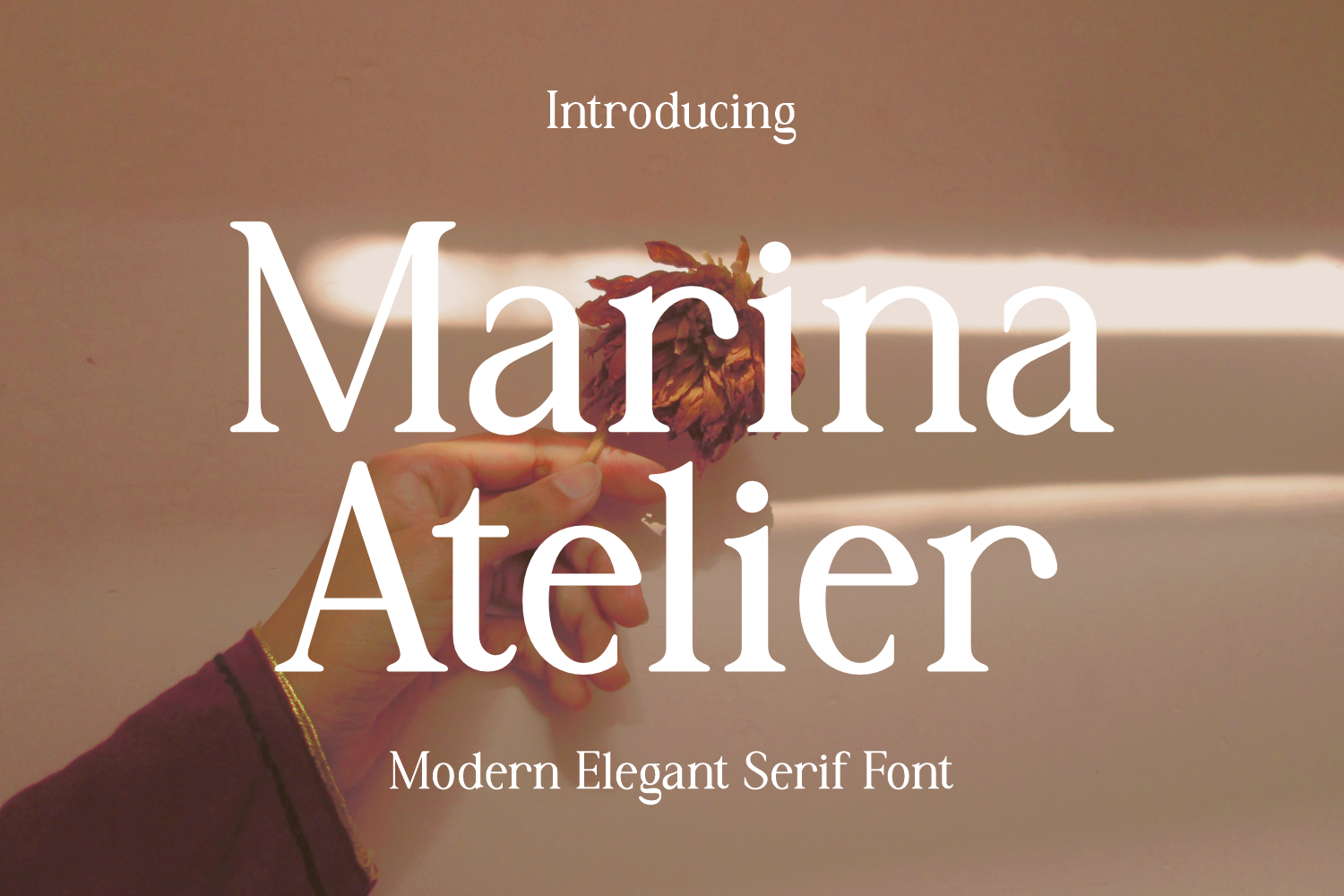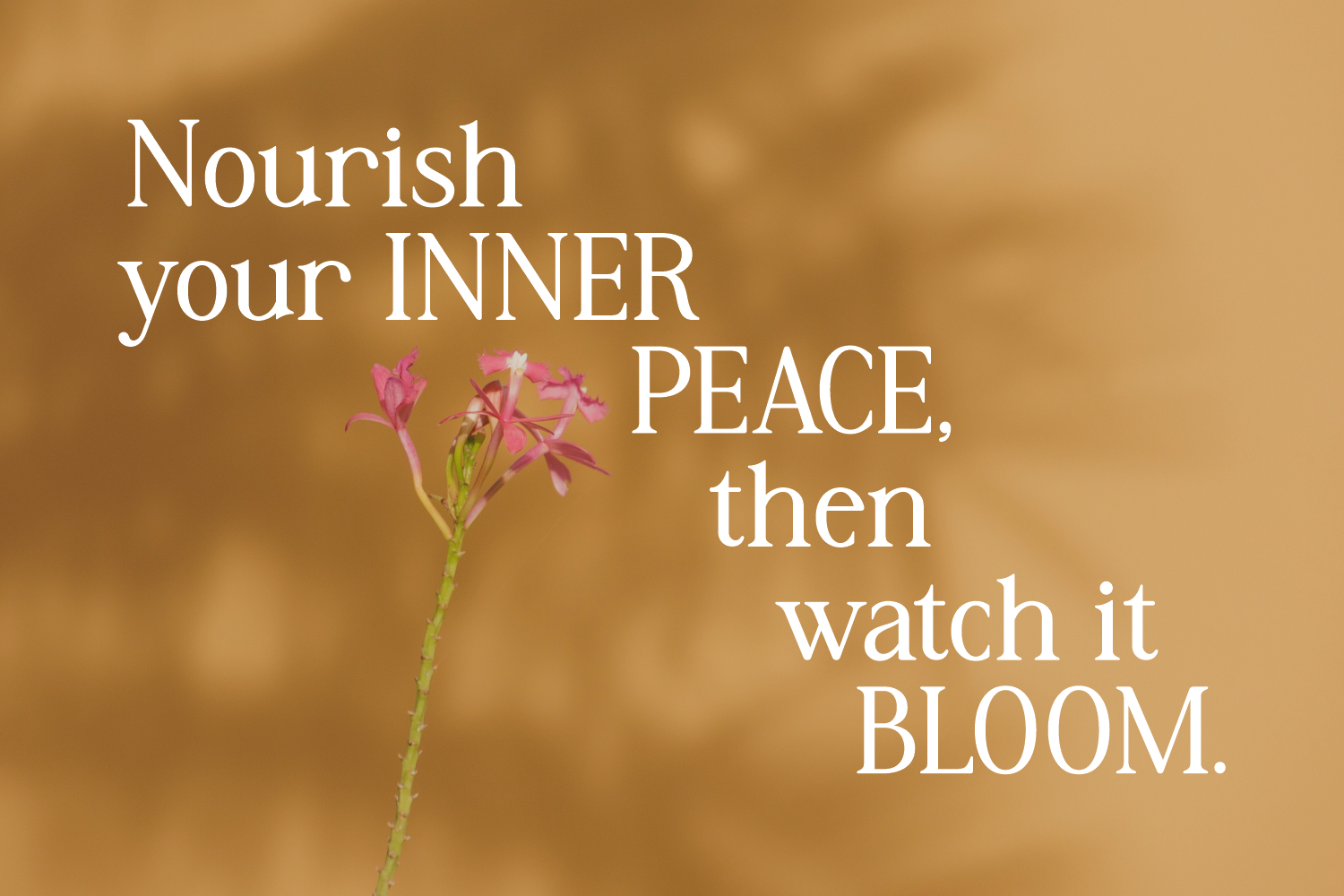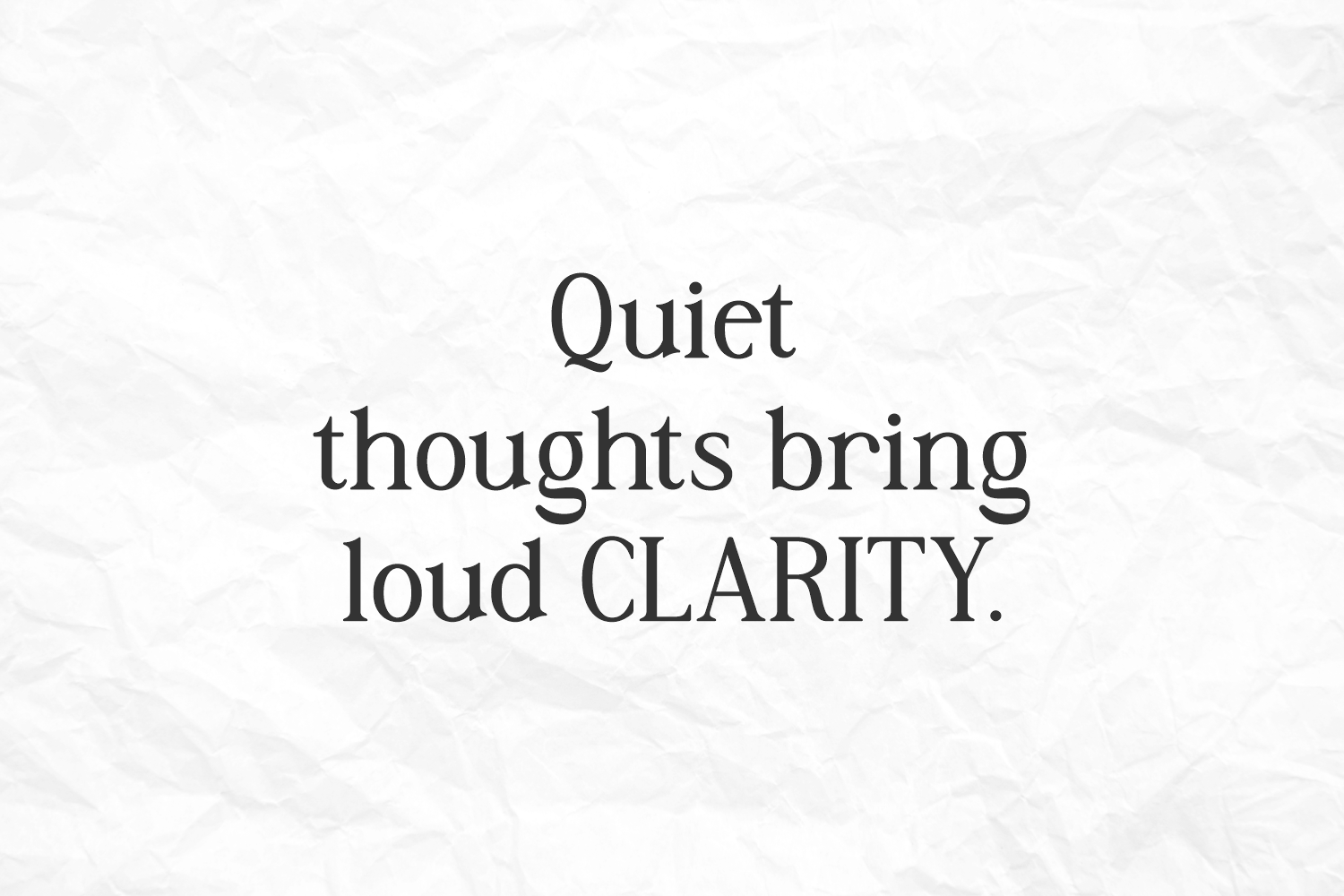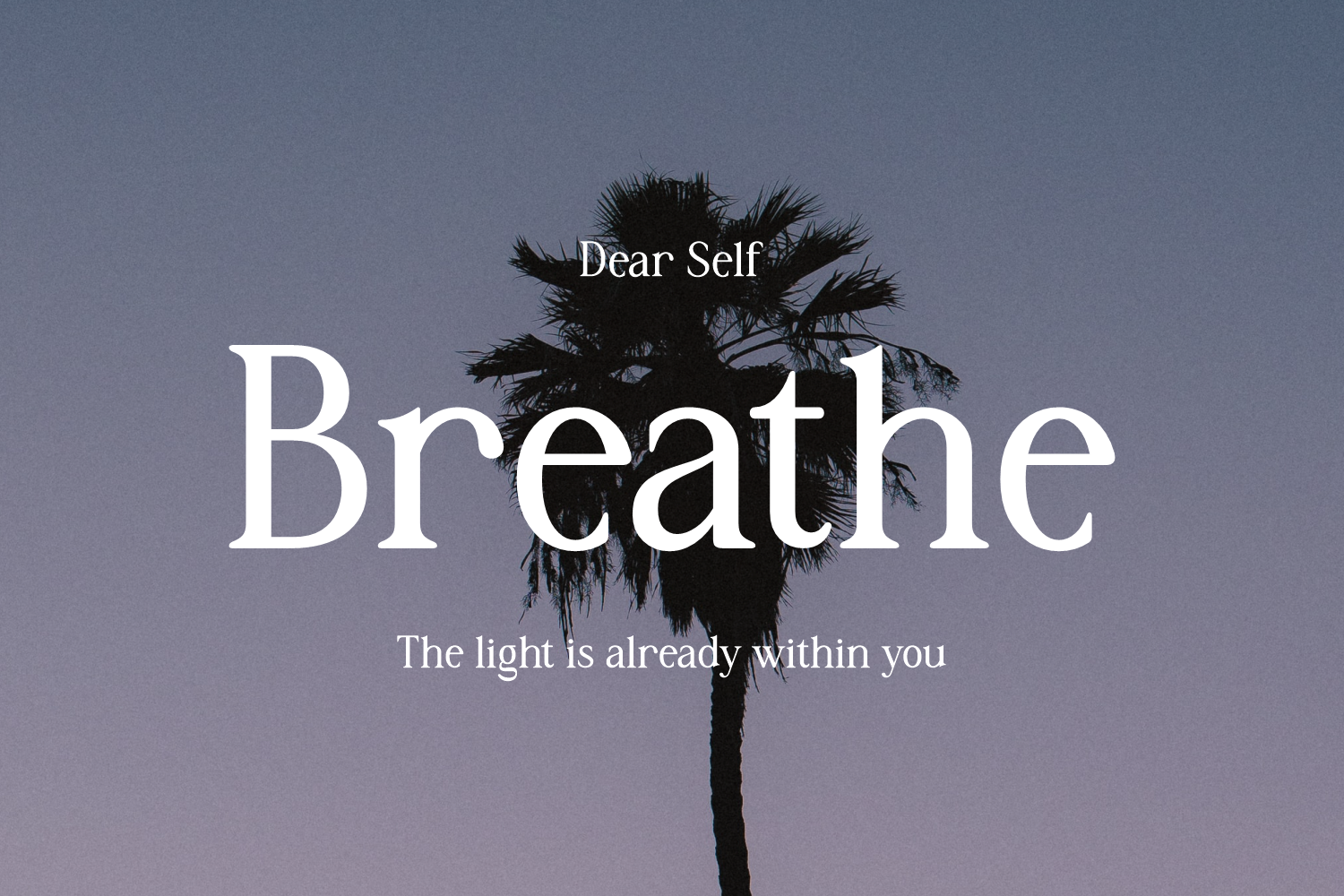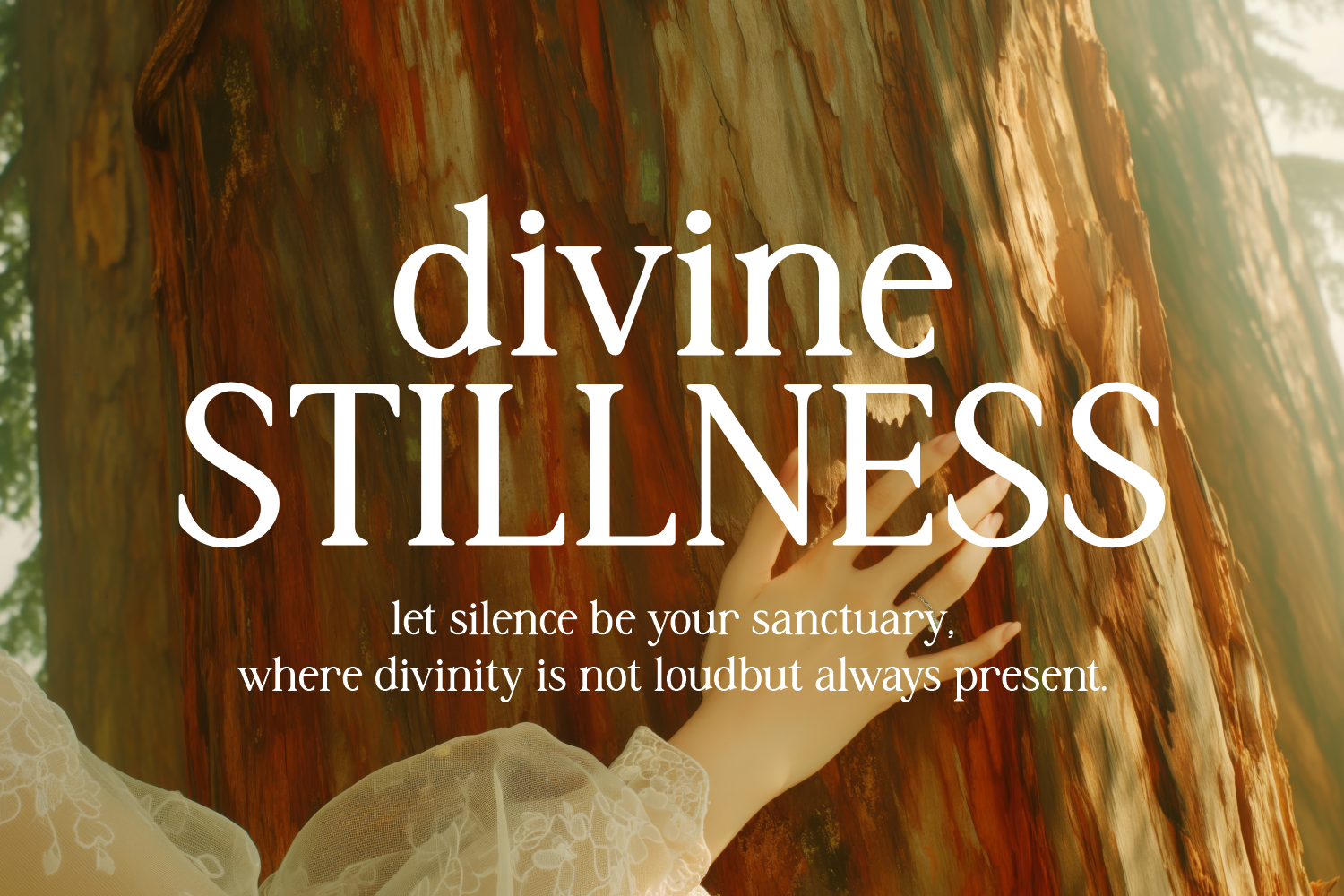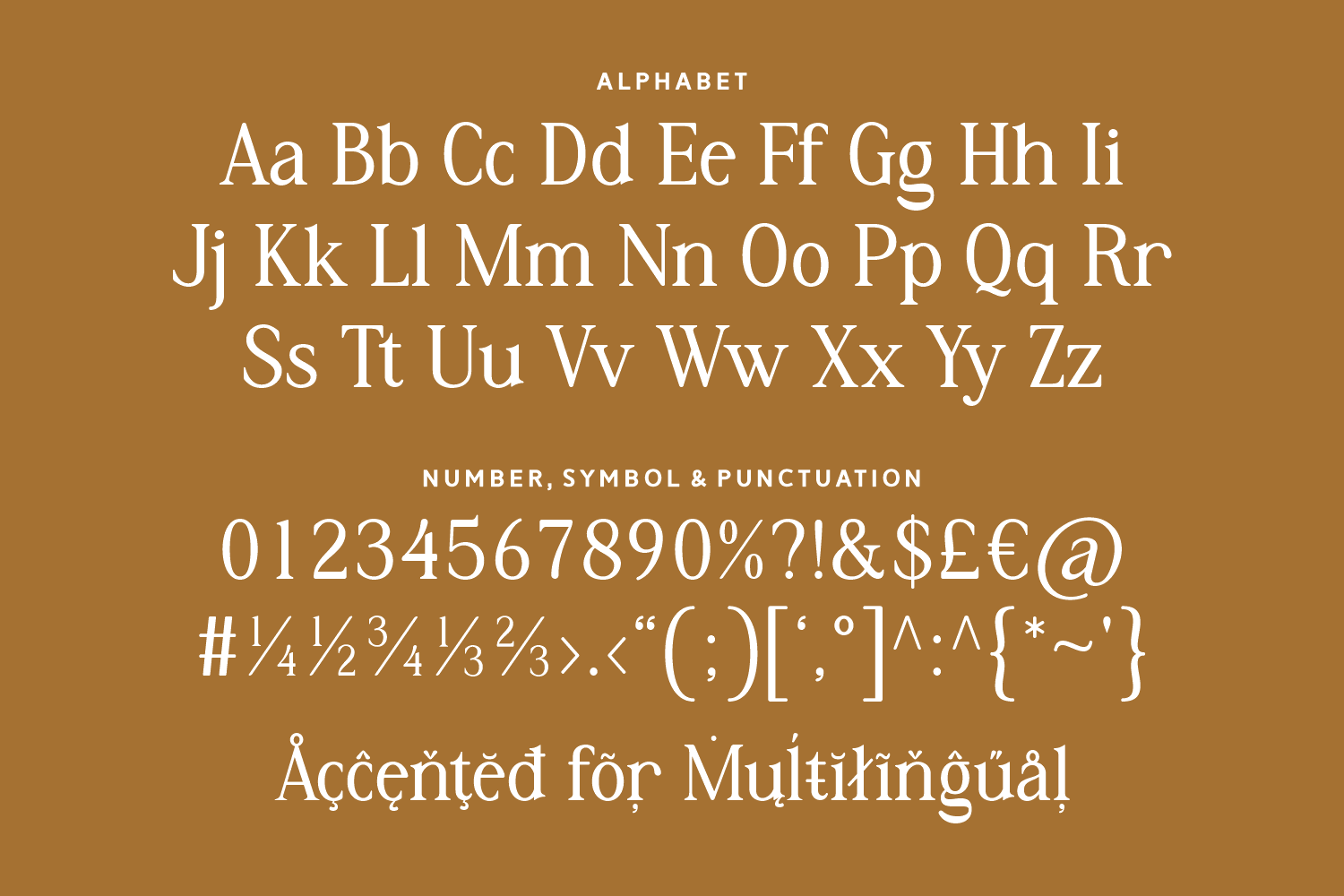
Marina Atelier
Marina Atelier is a soft, refined modern serif font that combines elegant curves with calm character. Marina Atelier speaks with clarity and warmth, offering a thoughtful presence without overpowering. It includes a full set of punctuation, multilingual support, and numerals—ready for meaningful, expressive typography.